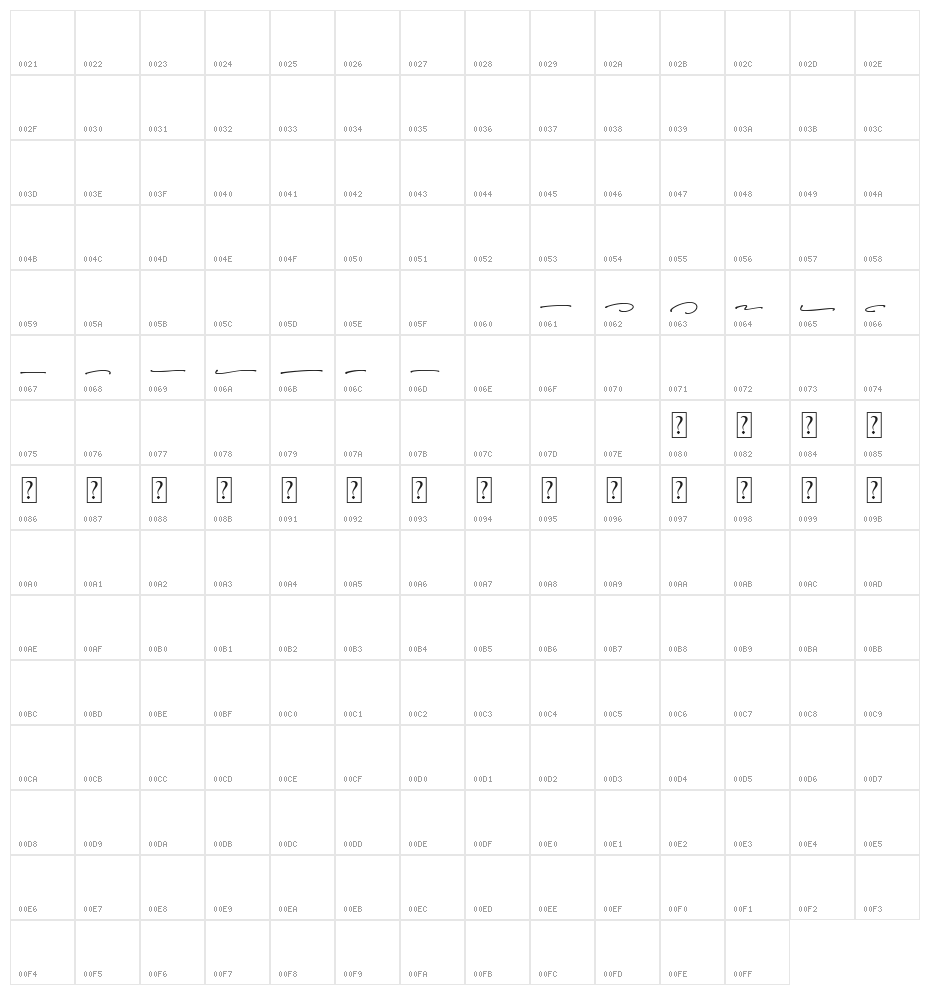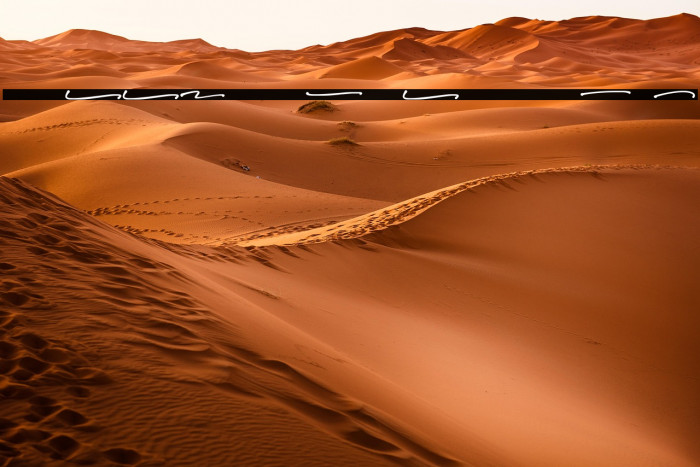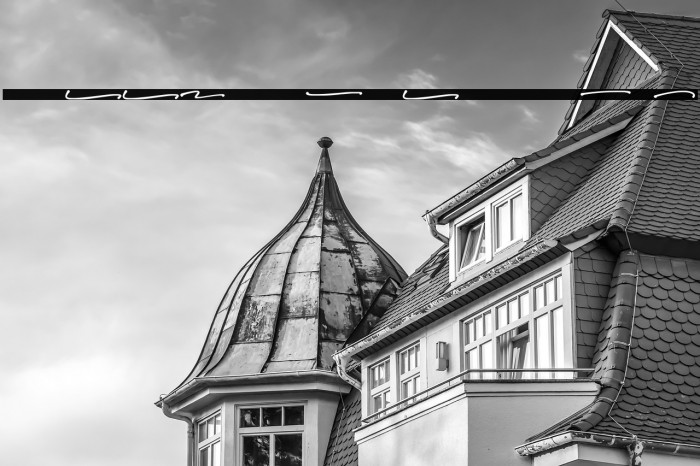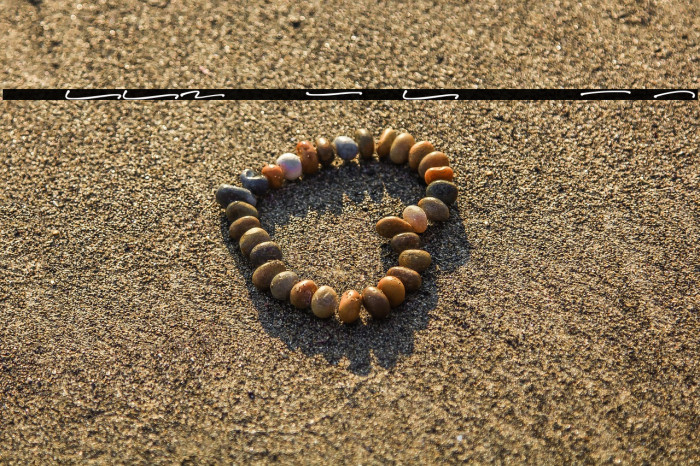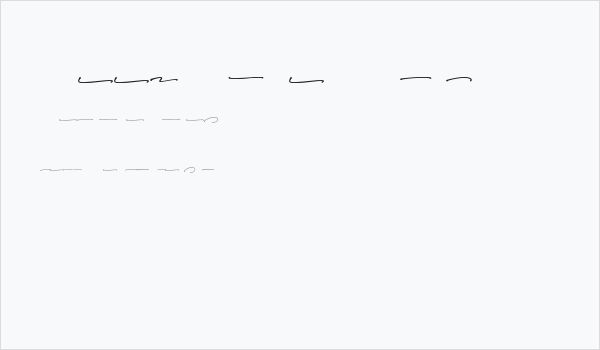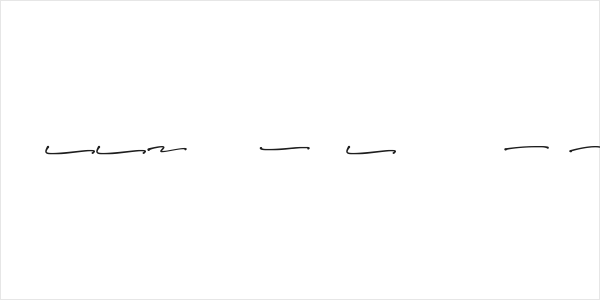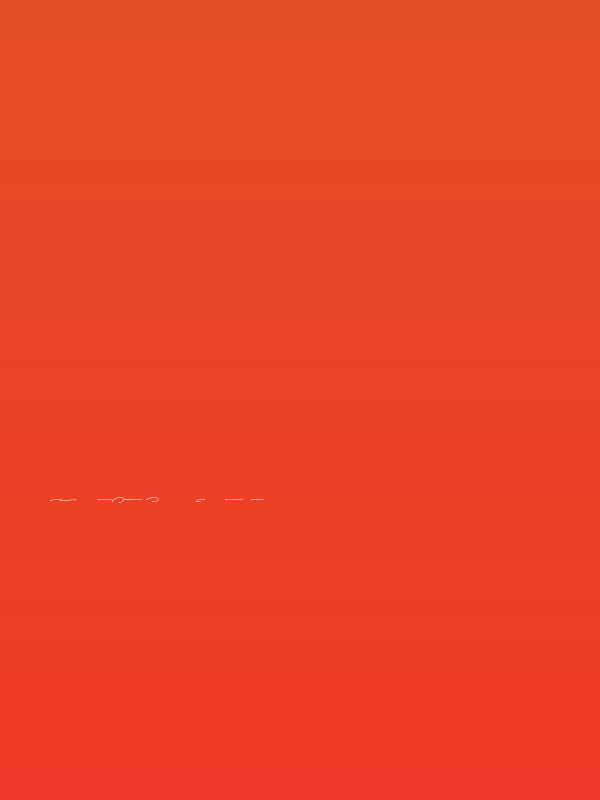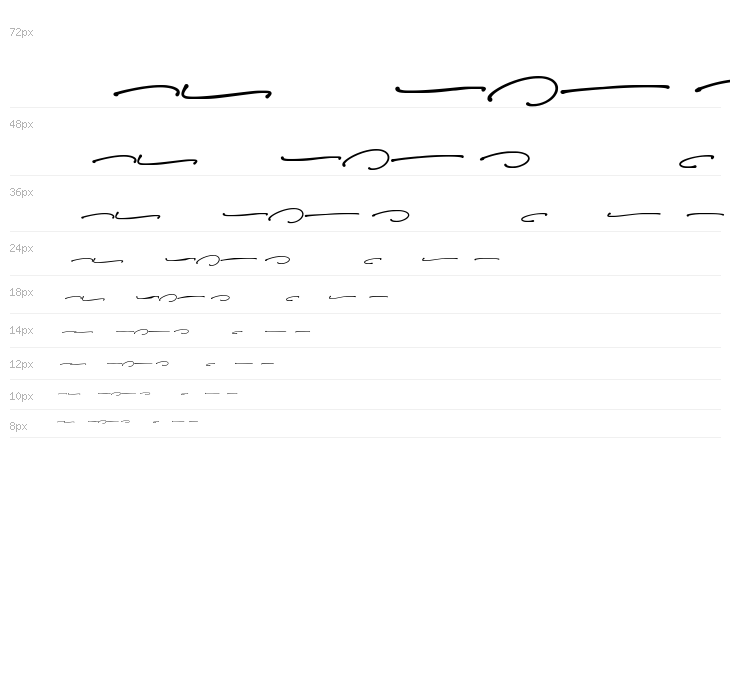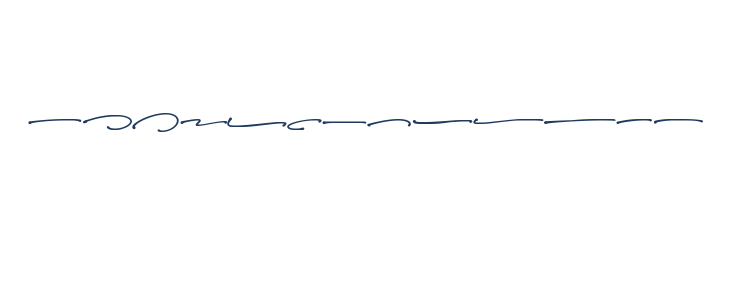
SpeedWritten Swash Font
SpeedWritten Swash Description
This font features a fluid, cursive style that mimics the elegance of handwritten script. The characters are connected with sweeping strokes, creating a continuous flow that is both graceful and dynamic. The lines are thin and delicate, adding a touch of sophistication and charm. This style is reminiscent of traditional calligraphy, yet it maintains a modern flair with its smooth curves and seamless connections. The font exudes a sense of personal touch and creativity, making it ideal for projects that require a humanistic and artistic feel.
| Use Case | Logos, Invitations, Artistic projects |
| Proposed Projects | Ideal for wedding invitations, personal branding, artistic projects, and greeting cards. |